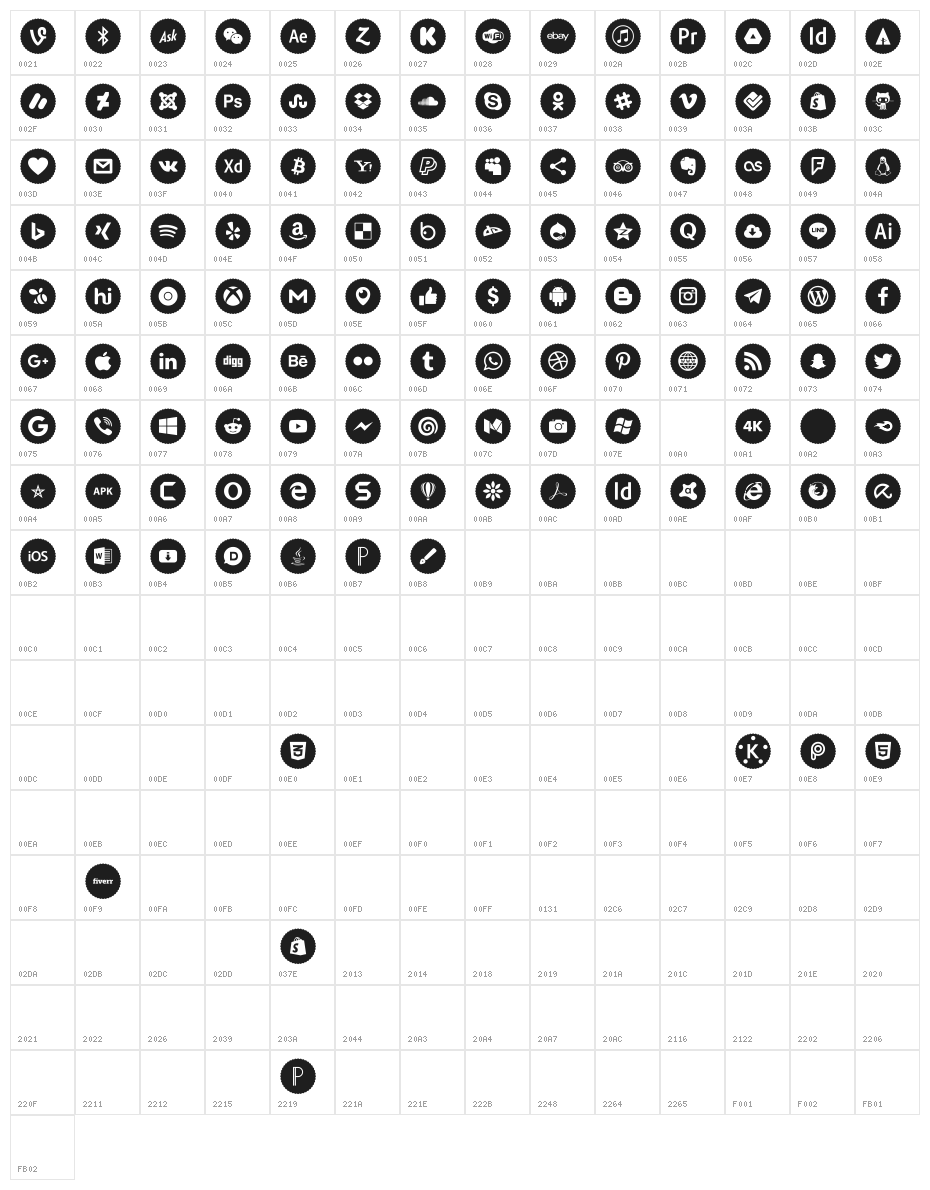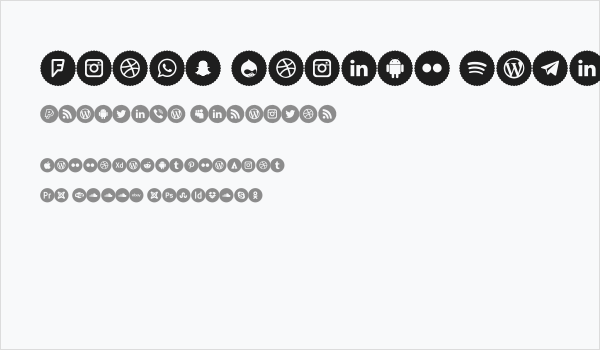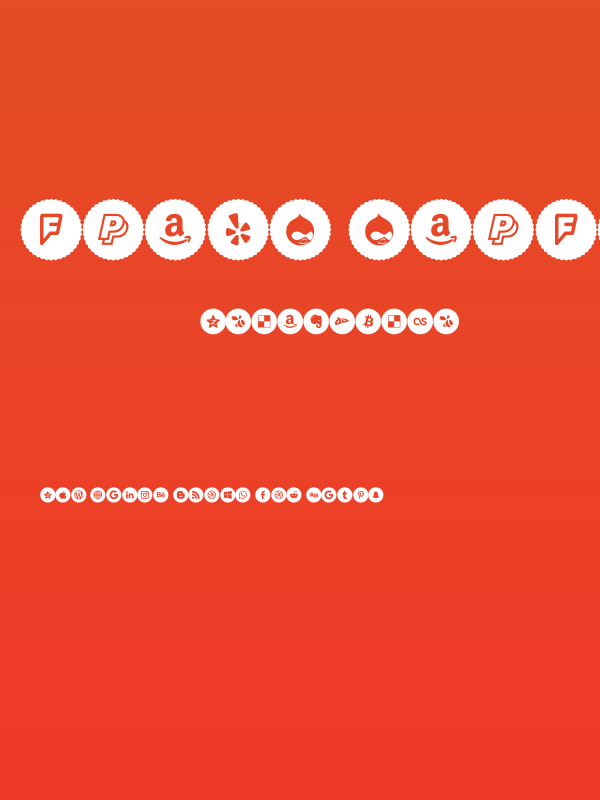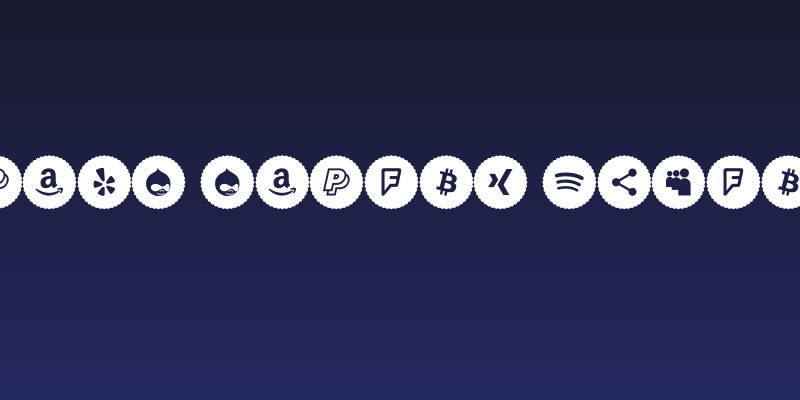
Icons Social Media 9 Font
Icons Social Media 9 Description
A collection of social media and web service icons, each represented as a white glyph within a solid black circular background with a jagged edge. The icons are simple, flat, and highly recognizable, designed for clear visibility at small sizes.
| Overall Style | Modern, Minimalist, Iconographic |
| Use Case | Icons, UI elements, Social media links |
| Proposed Projects | Website footers, app interfaces, business cards, social media banners, presentations. |